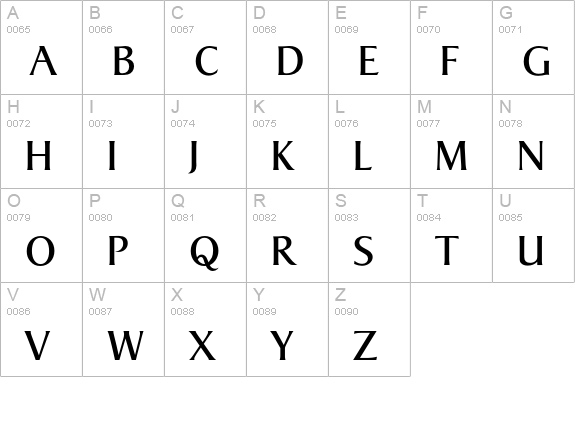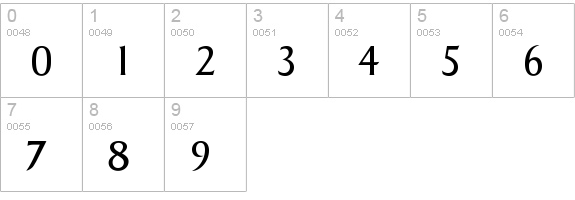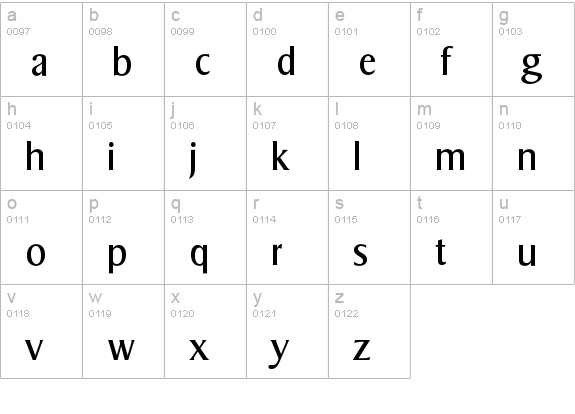
Sigvar-Regular is the standard, neutral variant in the Sigvar typeface family \xE2\x80\x94 well suited to general body text, paragraphs, and standard typographic work.
Sigvar-Regular is a versatile and elegant font that is perfect for adding a touch of sophistication to any design project. This font exudes a timeless charm with its clean lines and balanced proportions. Whether you are creating a logo, designing a website, or crafting a stunning invitation, Sigvar-Regular will effortlessly elevate your work to new heights. One of the best features of Sigvar-Regular is that it is free to download. Yes, you read that right - this high-quality font is available for free at FontsMarket.com. This means that you can access this amazing font without any cost, making it an excellent choice for designers on a budget or anyone who appreciates a good deal. With Sigvar-Regular, you can bring your creative visions to life without worrying about breaking the bank. This font's wide range of weights and styles gives you the freedom to experiment and find the perfect fit for your project. From light and airy to bold and impactful, Sigvar-Regular offers endless possibilities to suit your unique needs. Not only is Sigvar-Regular free, but it also boasts exceptional legibility and readability. The carefully crafted letterforms ensure that your messages are conveyed with clarity and precision. Whether in print or on screen, Sigvar-Regular delivers a professional and polished look that will captivate your audience. So why wait? Download Sigvar-Regular today from FontsMarket.com and unlock the power of this incredible font. Whether you are a professional designer or a hobbyist, this font will be a valuable addition to your toolkit. Don't miss out on this opportunity to enhance your designs with a high-quality font that won't cost you a dime. Embrace the beauty and versatility of Sigvar-Regular and let your creativity soar.